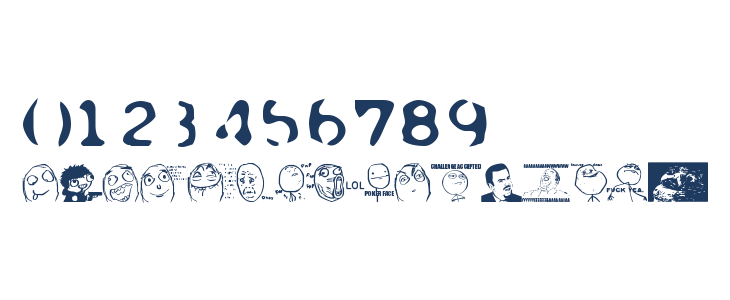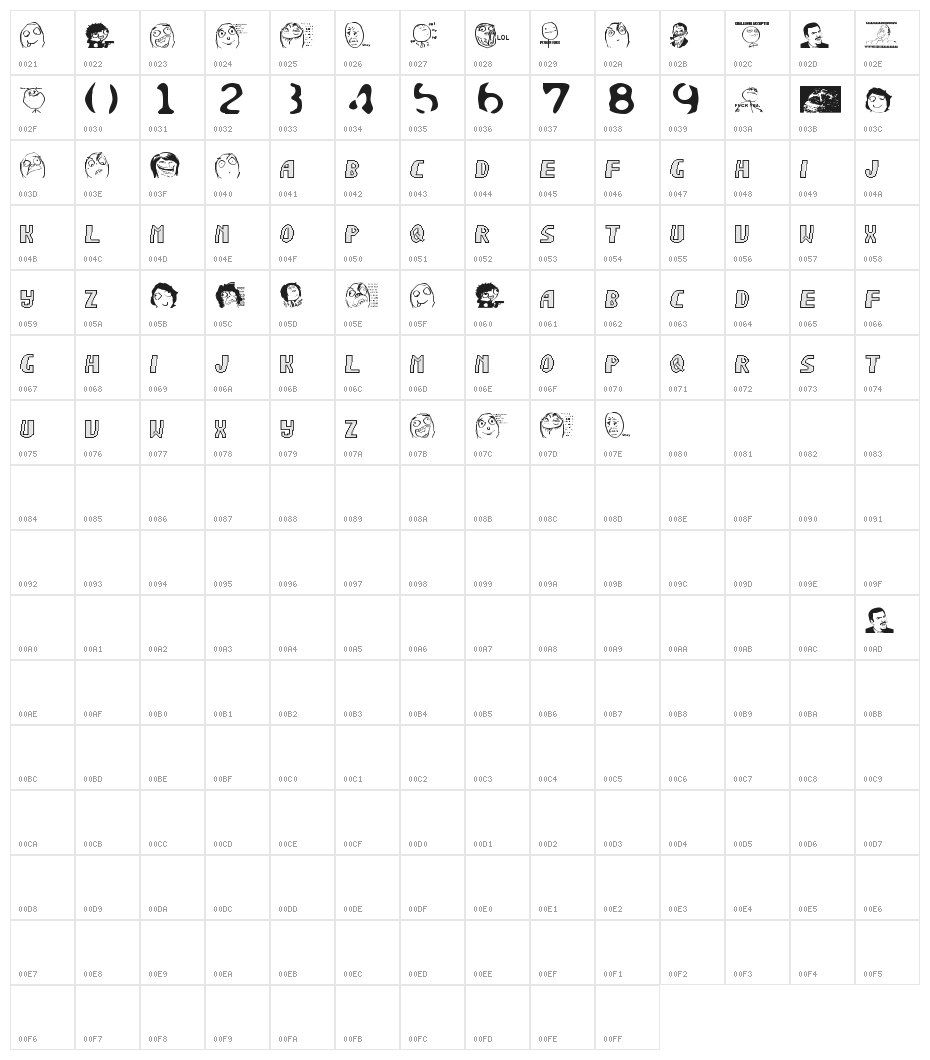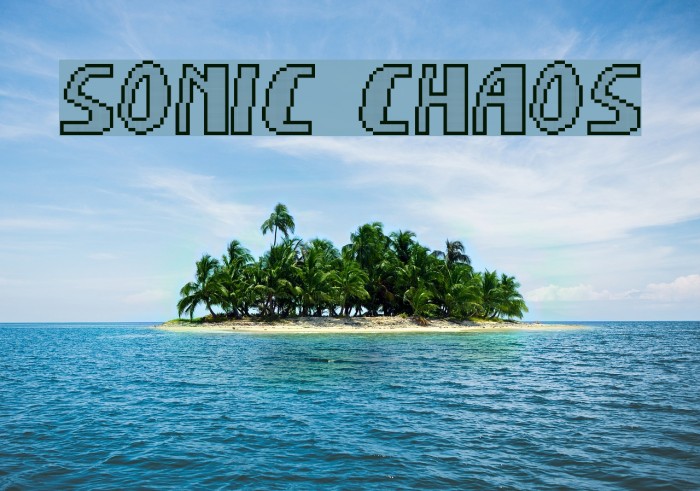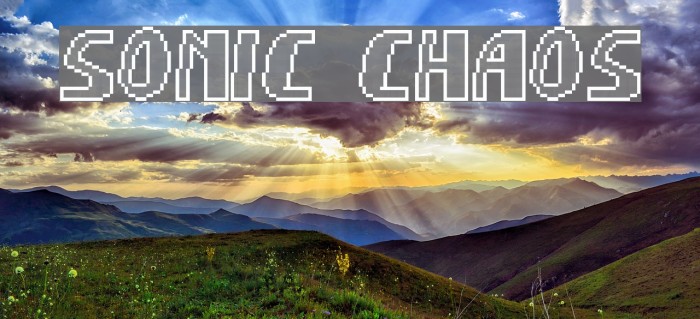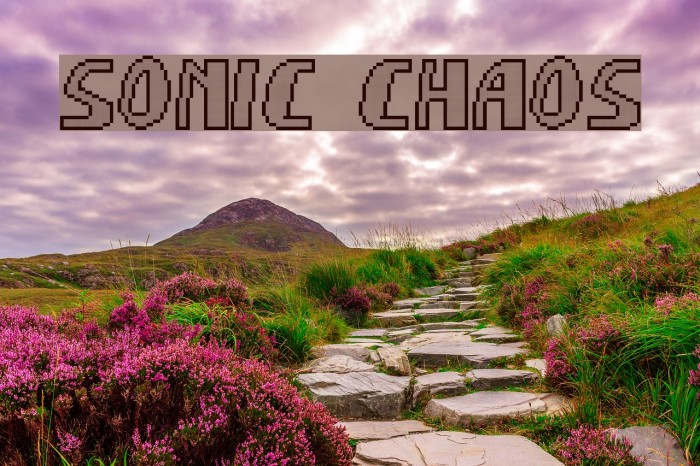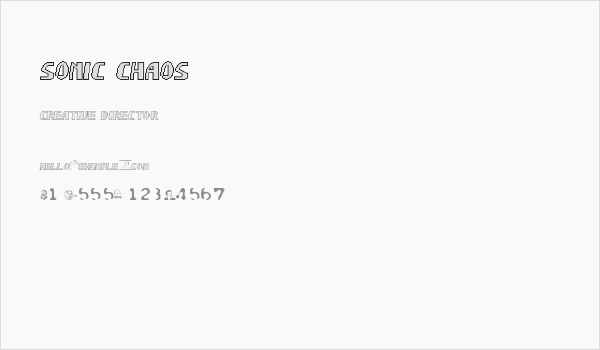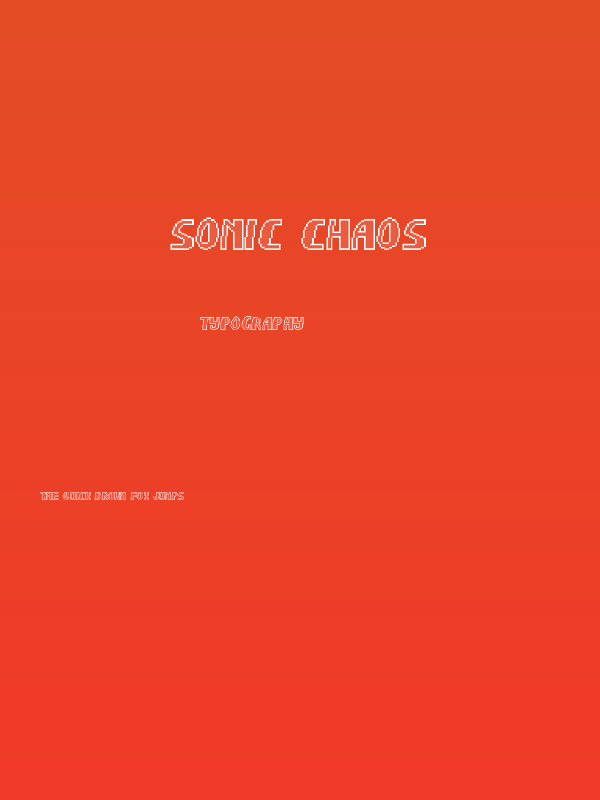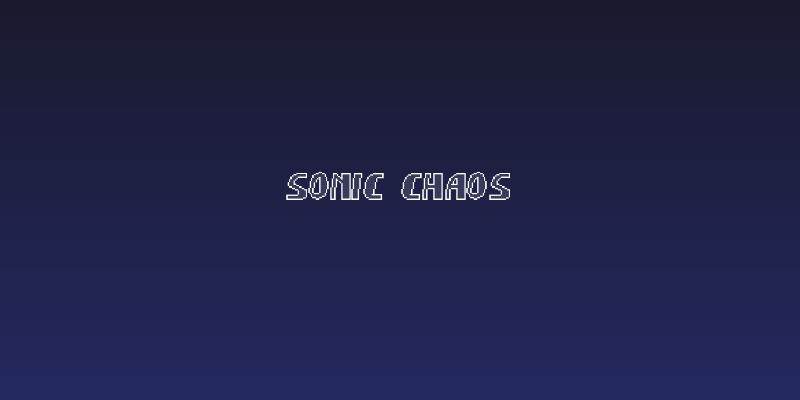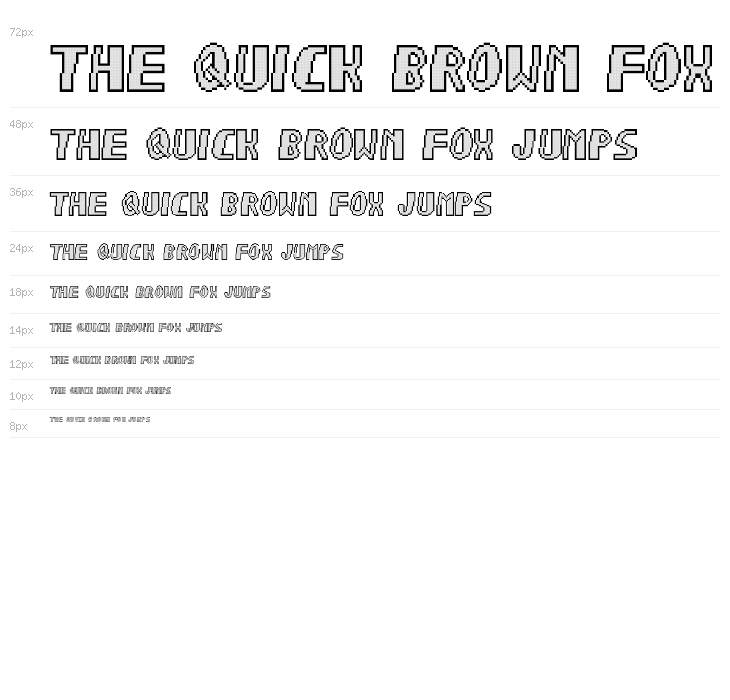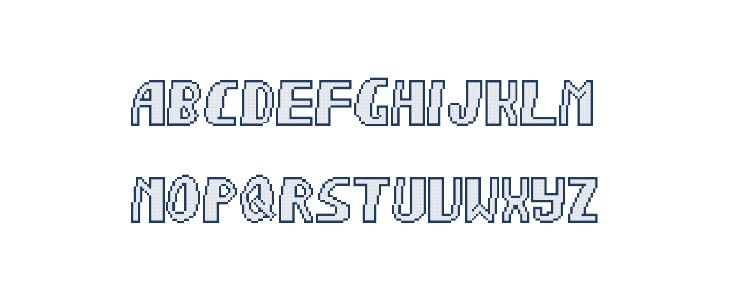
Sonic Chaos Font
This font features a bold, geometric style with a distinct, blocky appearance. The uppercase letters are outlined, creating a three-dimensional effect that adds depth and interest. The lowercase letters maintain the same geometric structure, ensuring consistency throughout the typeface. The numerals are uniquely stylized, with a playful, almost cartoonish flair that sets them apart from the letters. Special characters are included, matching the bold and dynamic aesthetic of the rest of the font. This typeface is ideal for projects that require a strong, eye-catching display font.
Proposed ProjectsIdeal for video game titles, posters, and any design needing a bold, standout font.